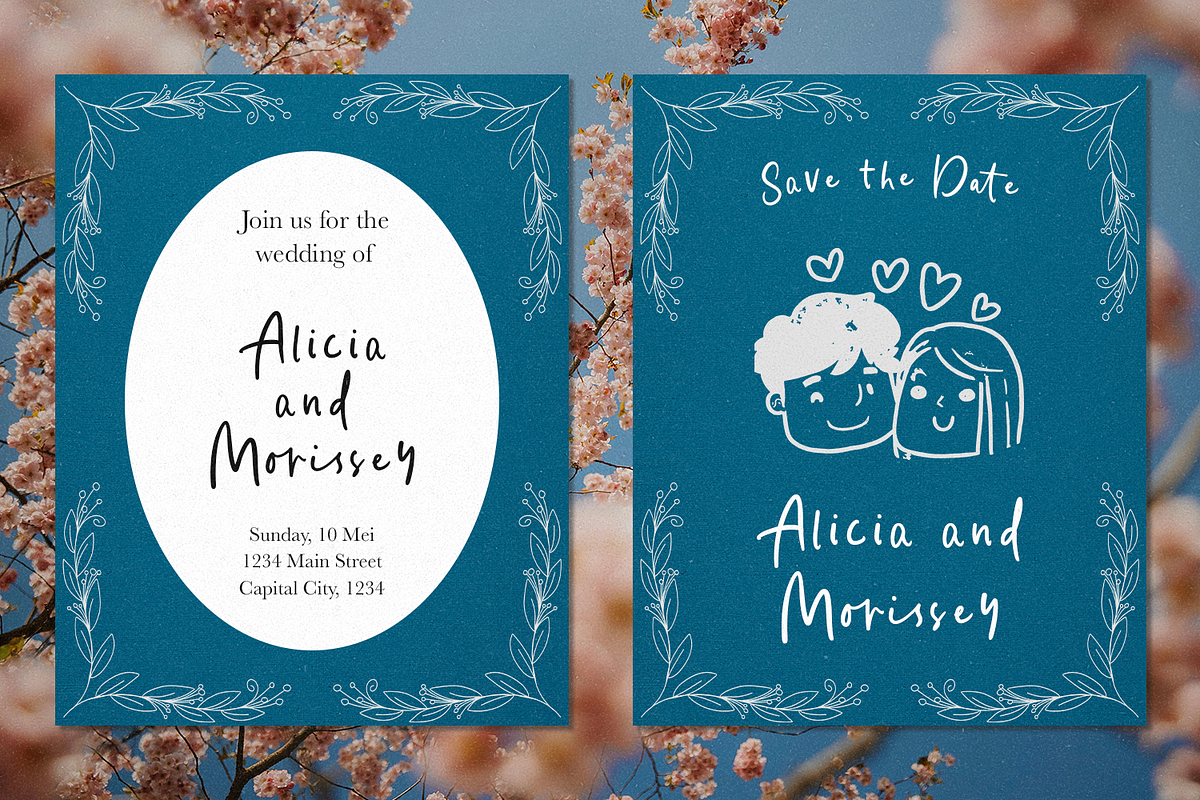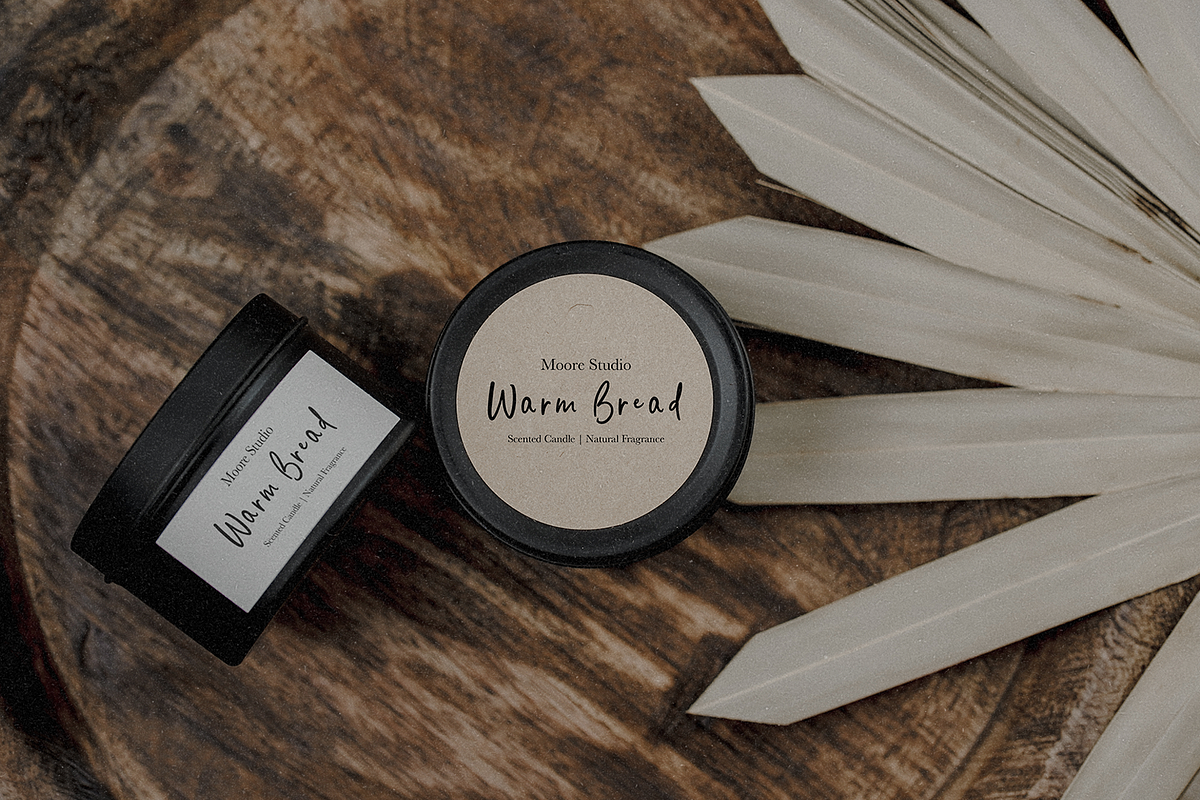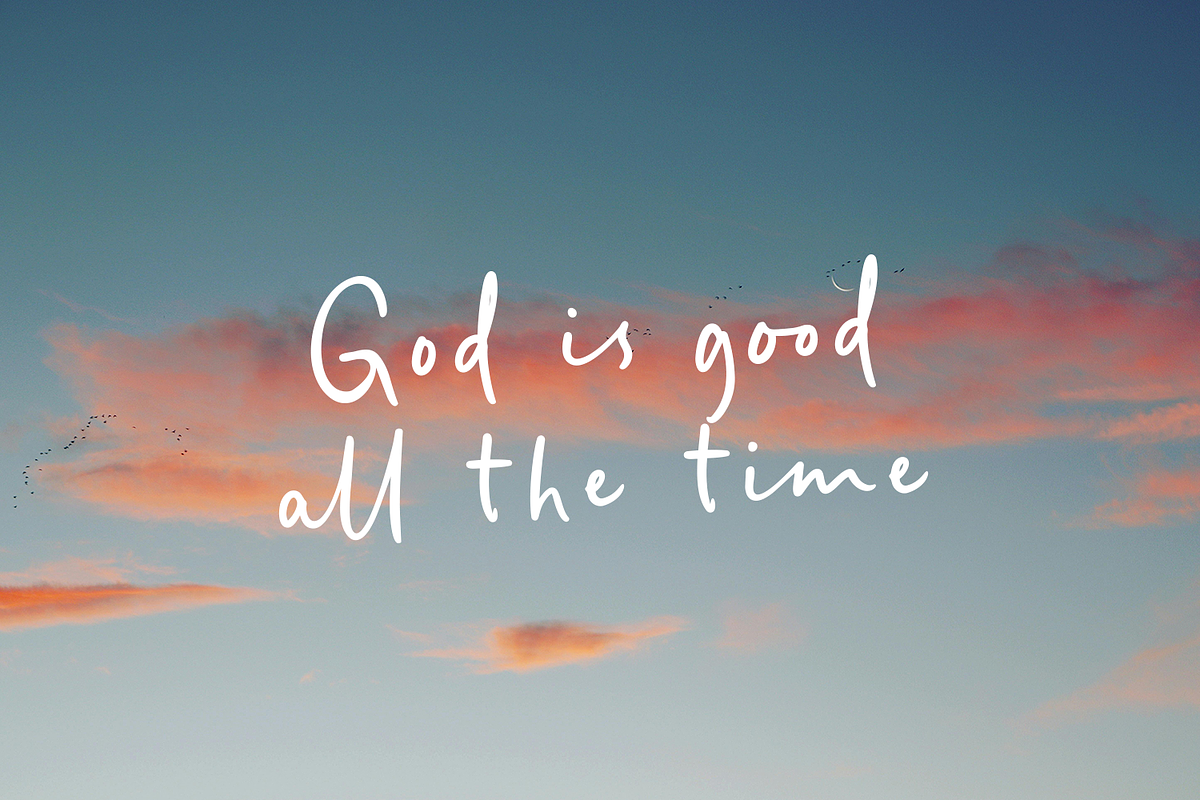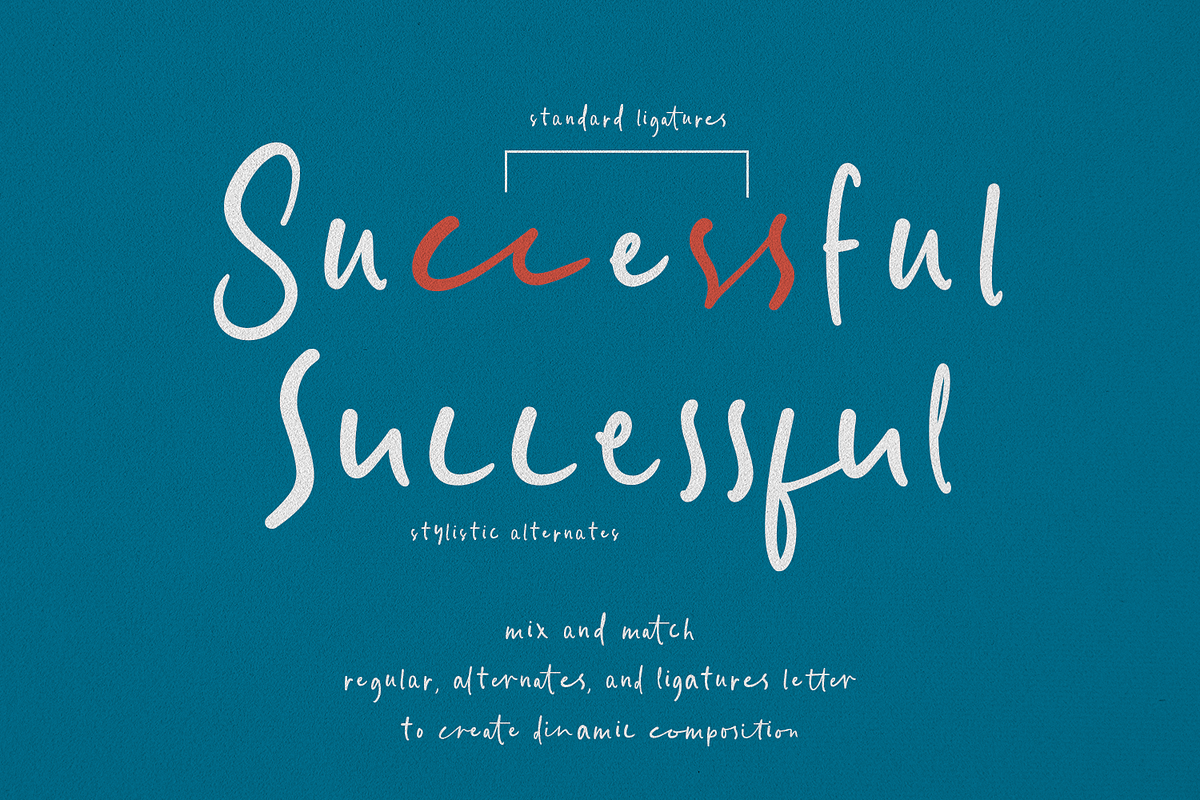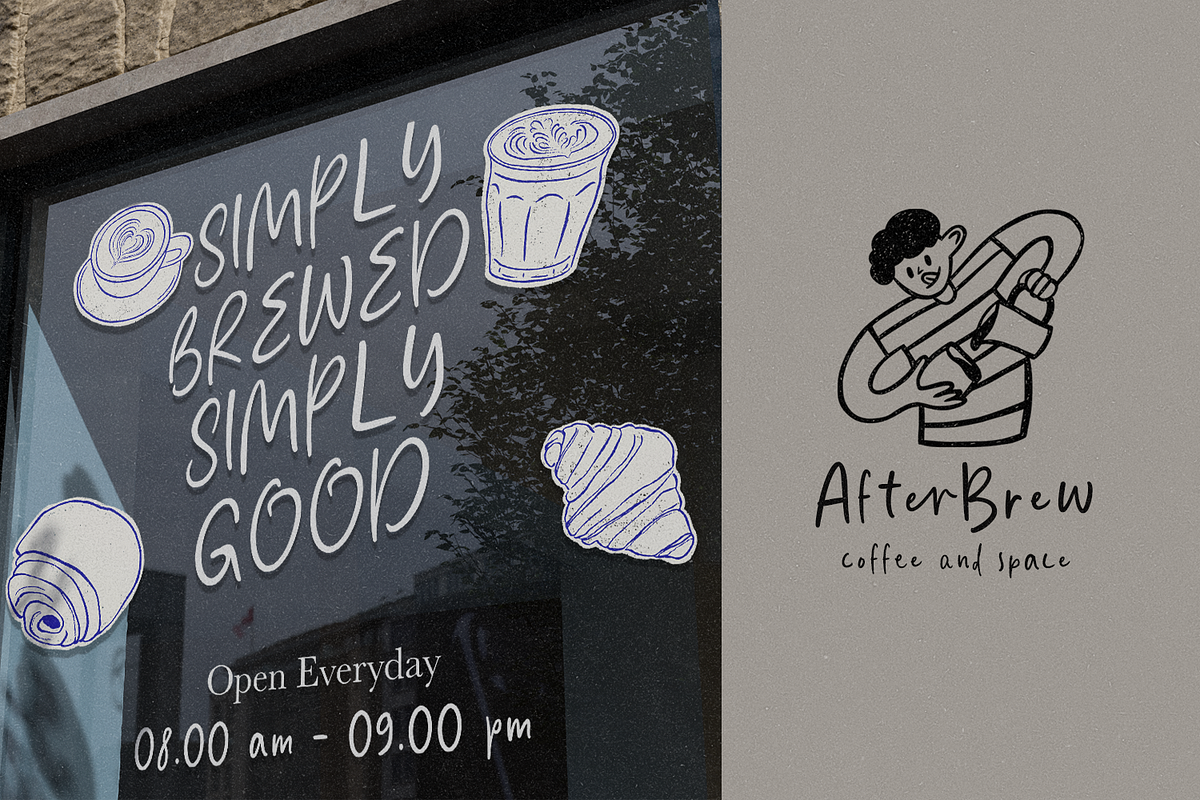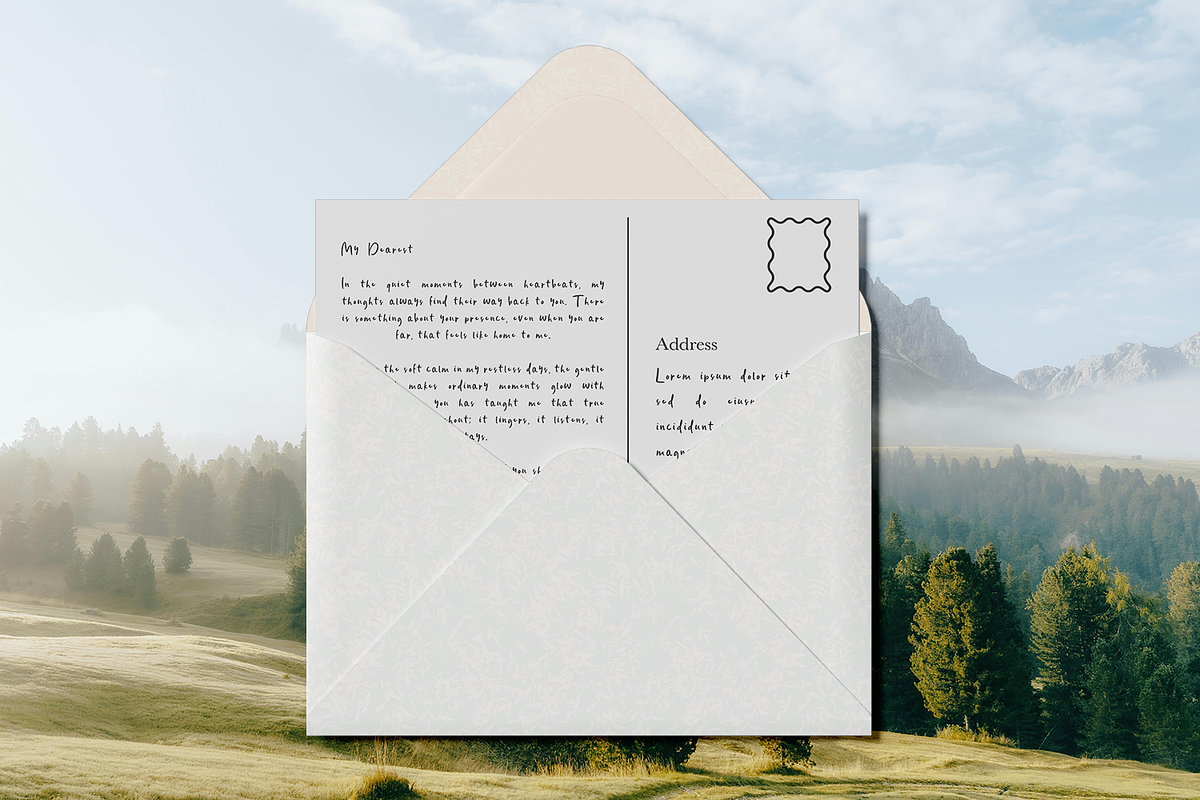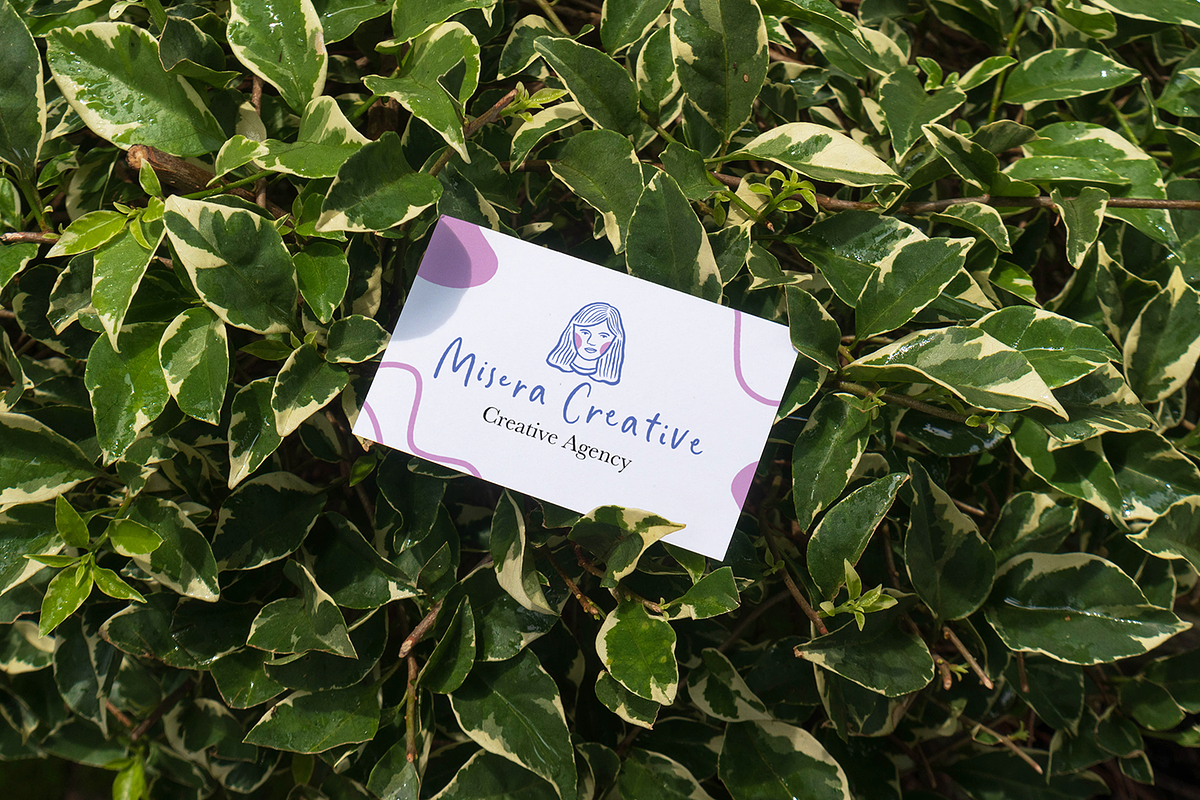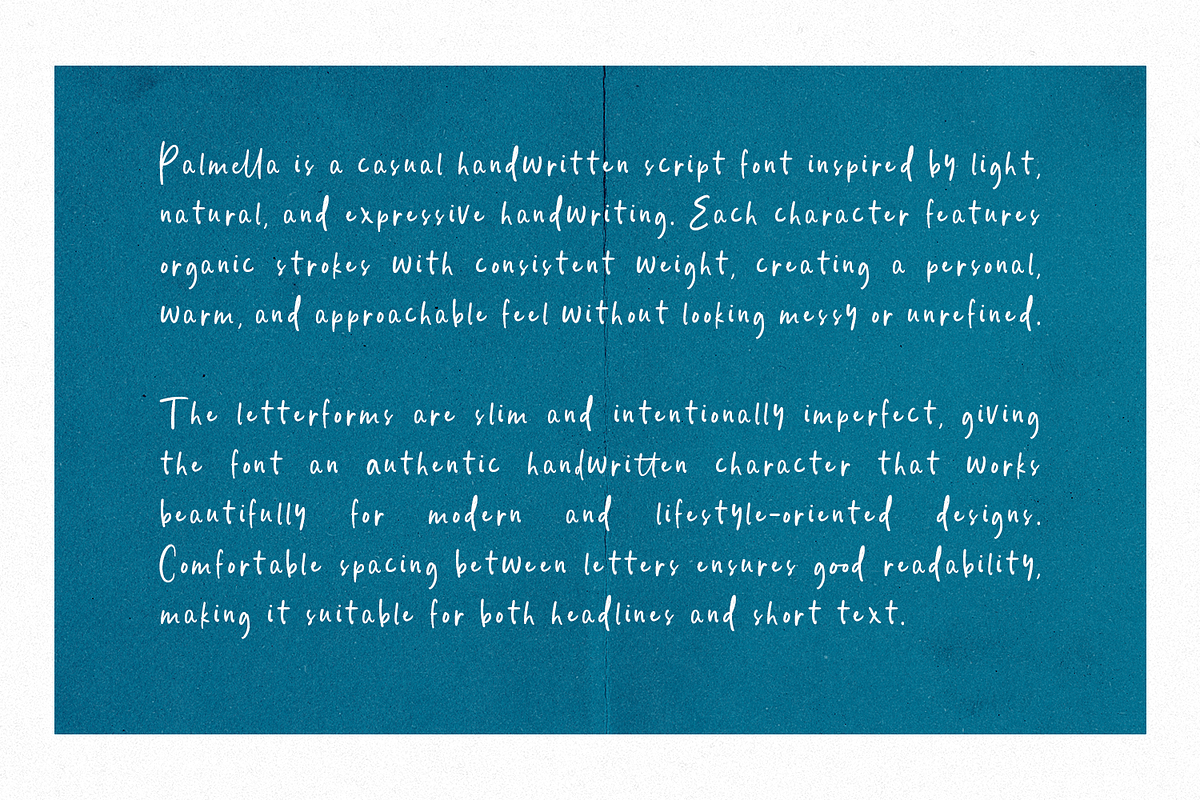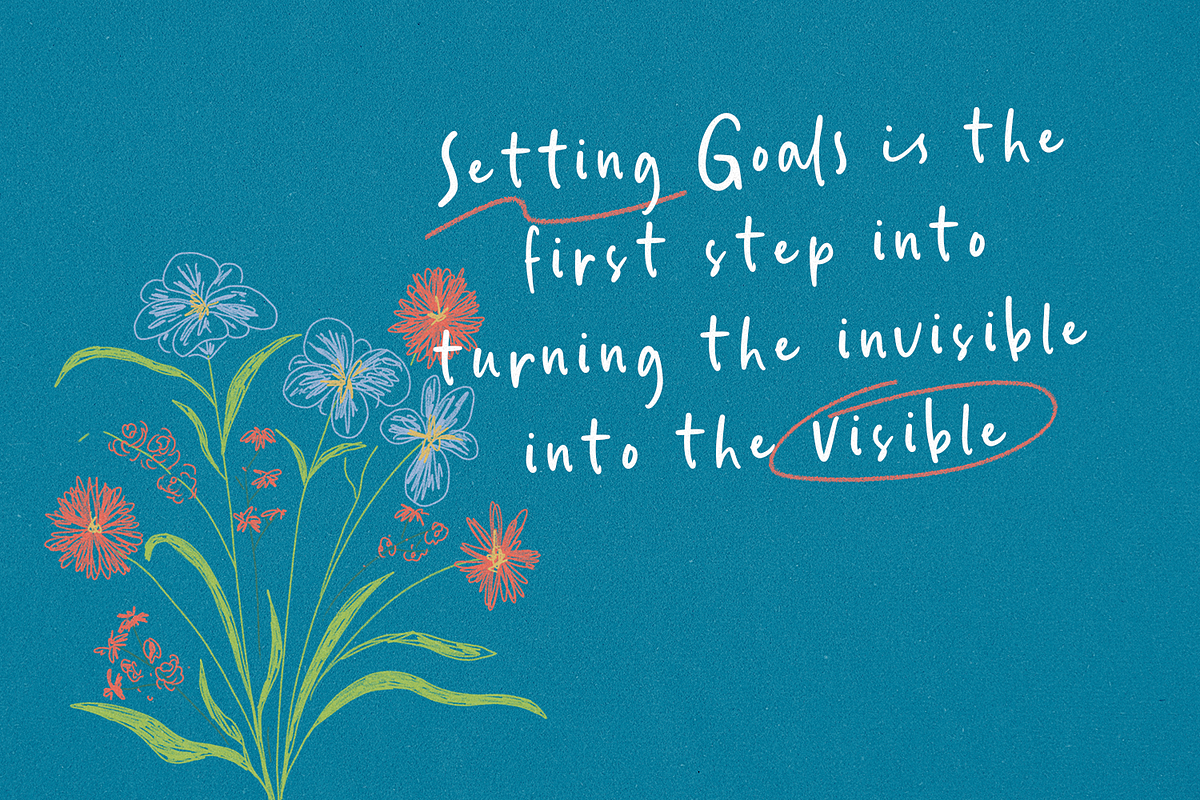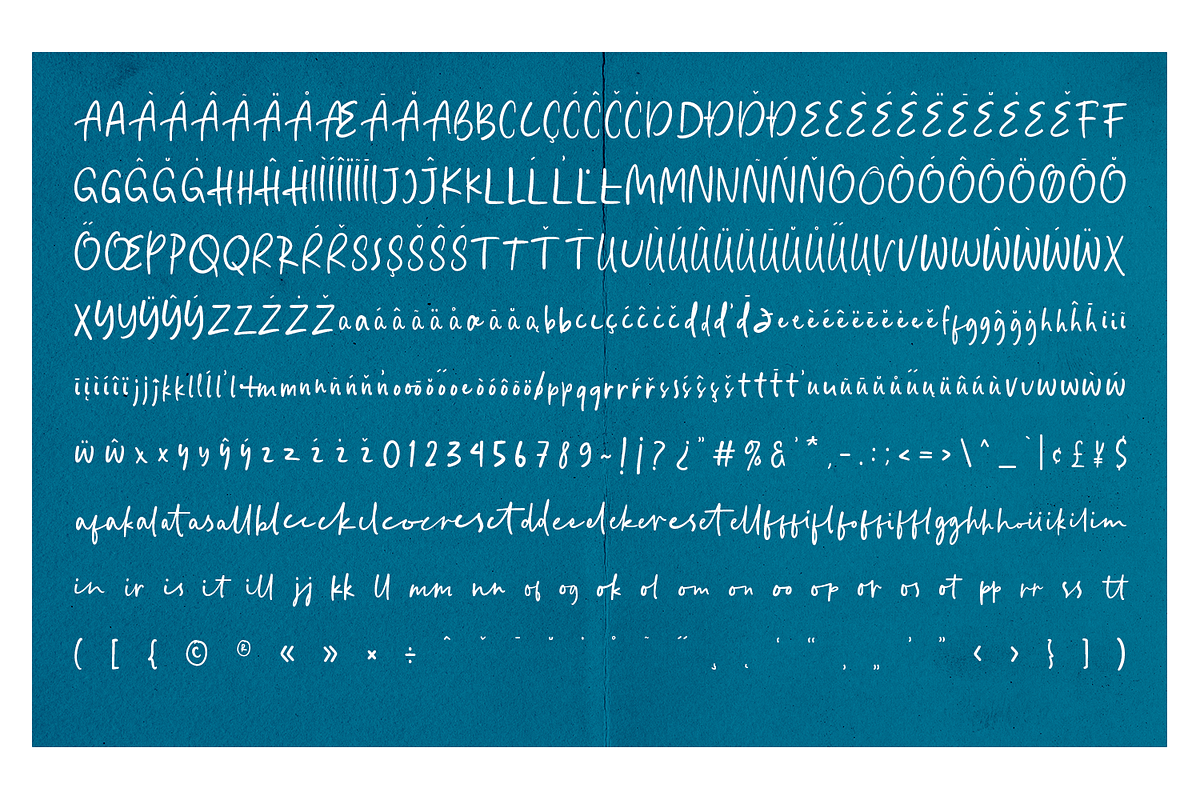
Palmella - Semi Script Handwriting
Pamella Handwritten is a warm and expressive handwritten script font designed to bring a natural, personal touch to your designs. Inspired by casual handwriting with smooth, flowing strokes, this font feels friendly, organic, and full of character.
Each letter is crafted with balanced proportions and subtle imperfections, creating an authentic handwritten look that remains clean and readable. Pamella Handwritten comes with a variety of alternates and ligatures, allowing designers to create dynamic, natural-looking typography with ease.
- Unique Letterforms